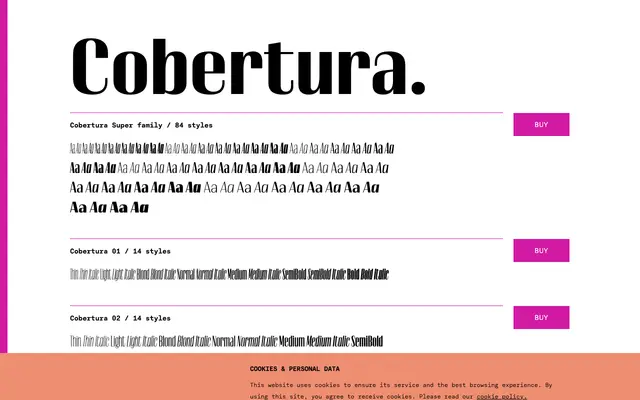
Cobertura
A superfamily of 84 styles across six numbered subfamilies, each running seven weights with italics, built around a serif design with clear historical references.
Six distinct subfamilies — numbered 01 through 06 — each offer seven weights from Thin to Bold with matching italics, totalling 84 styles. The family supports an extensive OpenType feature set including oldstyle figures, tabular figures, discretionary ligatures, stylistic sets and case-sensitive forms. Sample text drawn from historical accounts of punchcutting signals a design sensibility rooted in pre-digital type history.
The family's six numbered subfamilies suggest optical or stylistic variations within a serif framework, with sample text referencing punchcutting history indicating a historically informed design. The weight range and italic pairing are consistent with a transitional serif tradition.